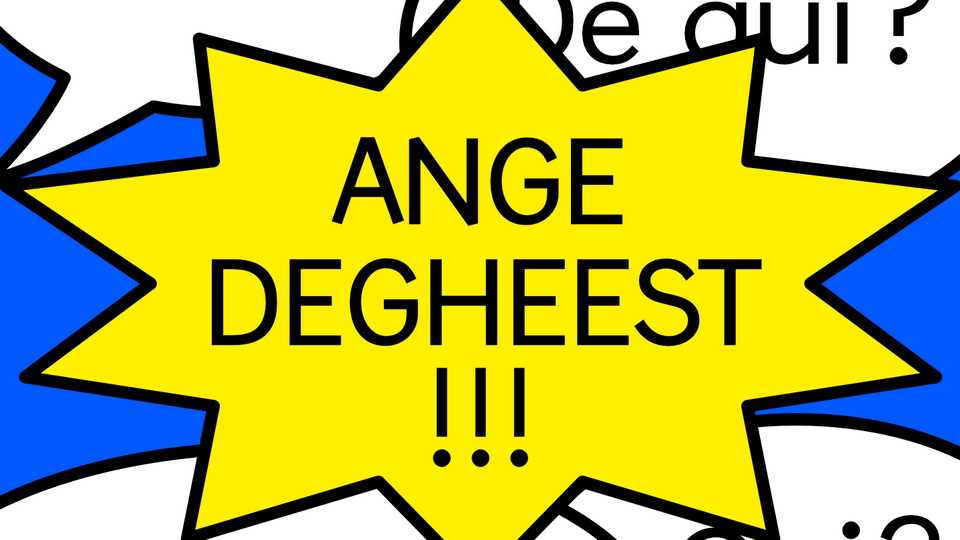
Download Abordage font, a sans serif typeface taking inspiration from Ange Degheest’s letterings on nautical charts. Abordage is a free interpretation of the letter shapes used to designate mountains and isolated rocks on maps; they are characterized by a monolinear simplicity and numerous charming oddities.